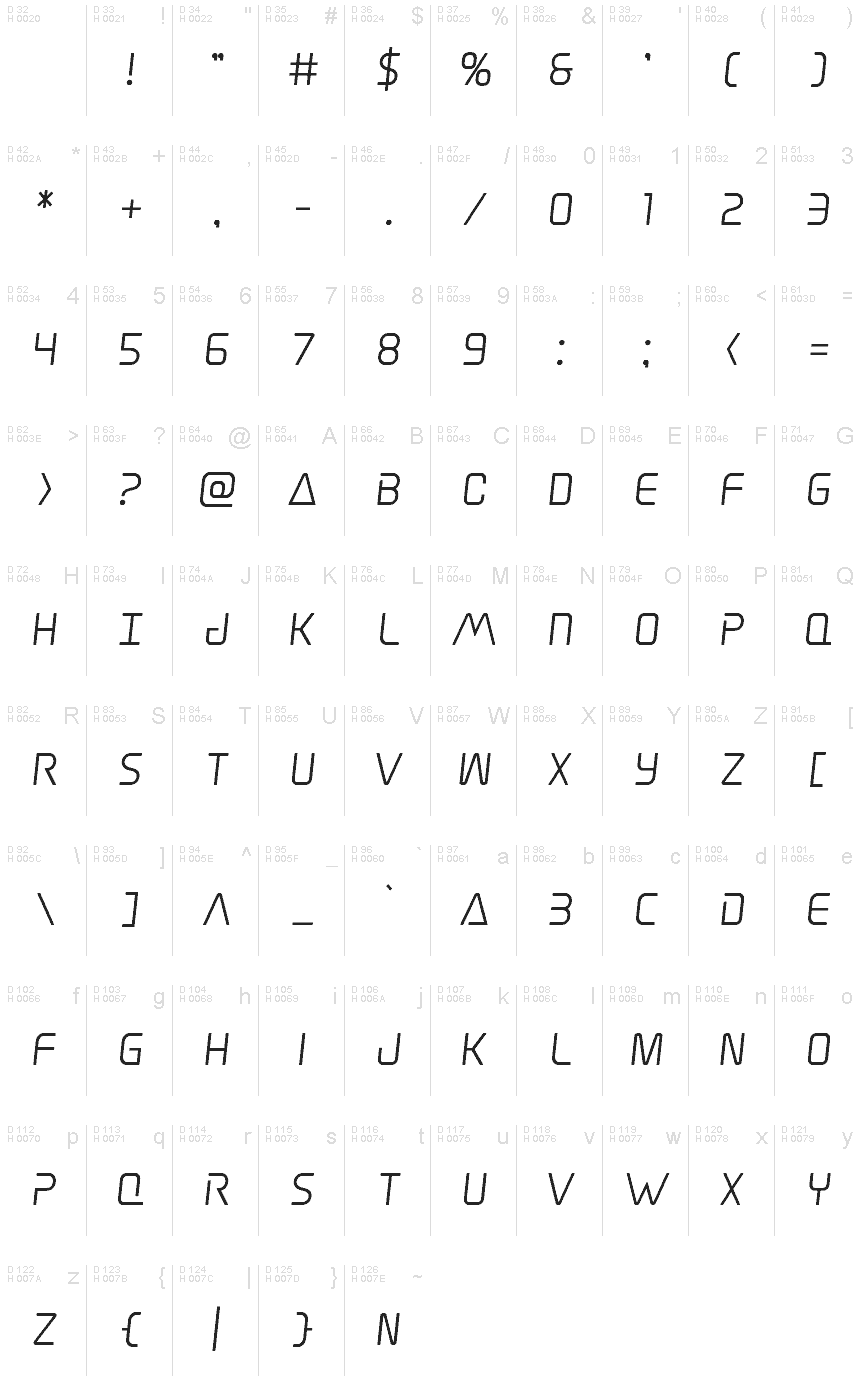
Elite Danger SemiBold SemiItal
Elite Danger font by Iconian Fonts is a futuristic display typeface with a sport, modern feel. The fonts of this family are mostly sleek and each letterform has the appropriate indentation, accentuation, and angles to make for an understated elegant look. Readers will easily notice these qualities when you use this free font in your projects.
Get creative with your uses: use it in film posters, sportswear branding designs, video game interfaces, book covers, packaging design for food or tech items like gadgets or maybe even clothing. The font can also be used exclusively in websites: headings, logos… they’re all yours!